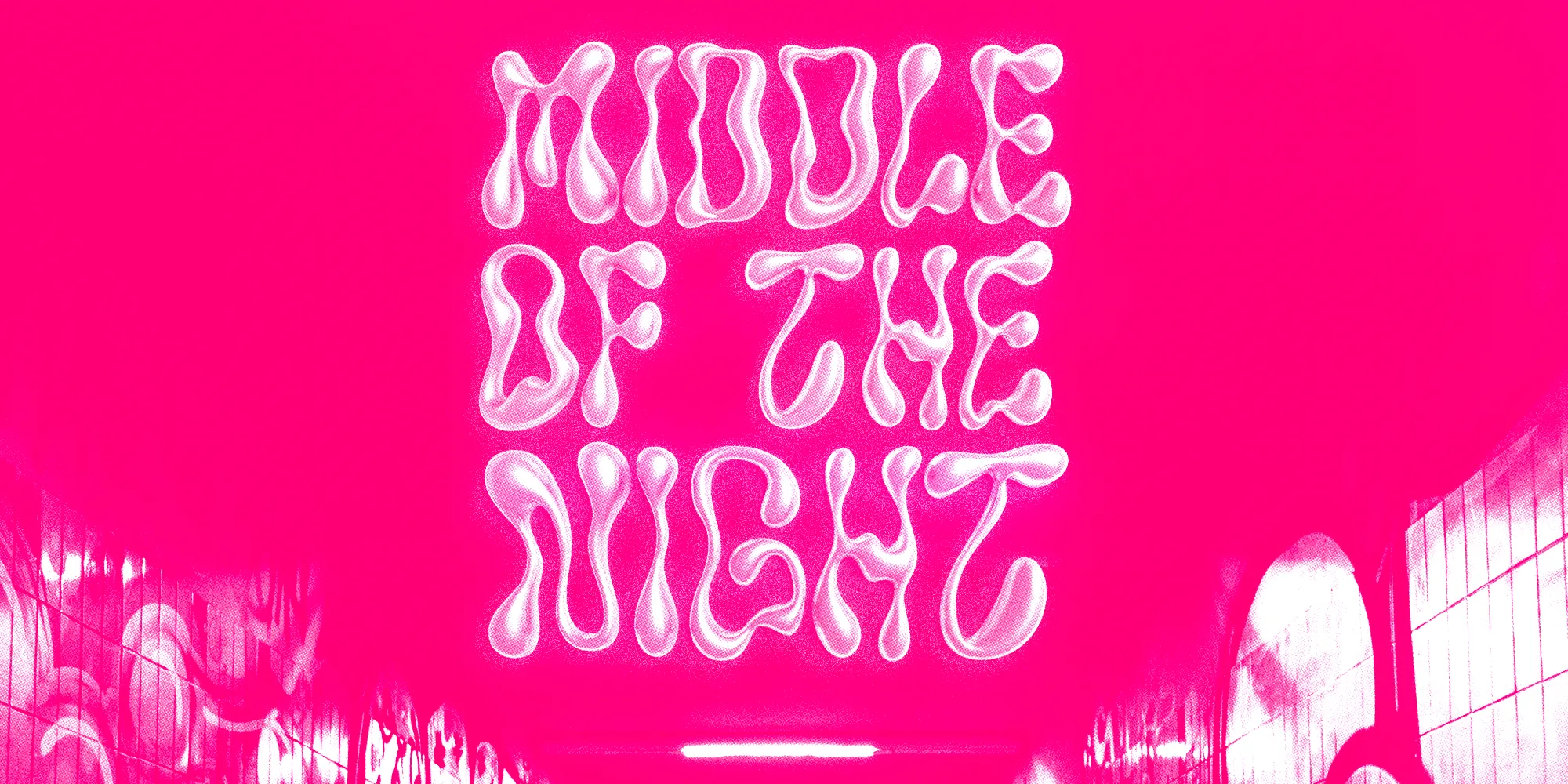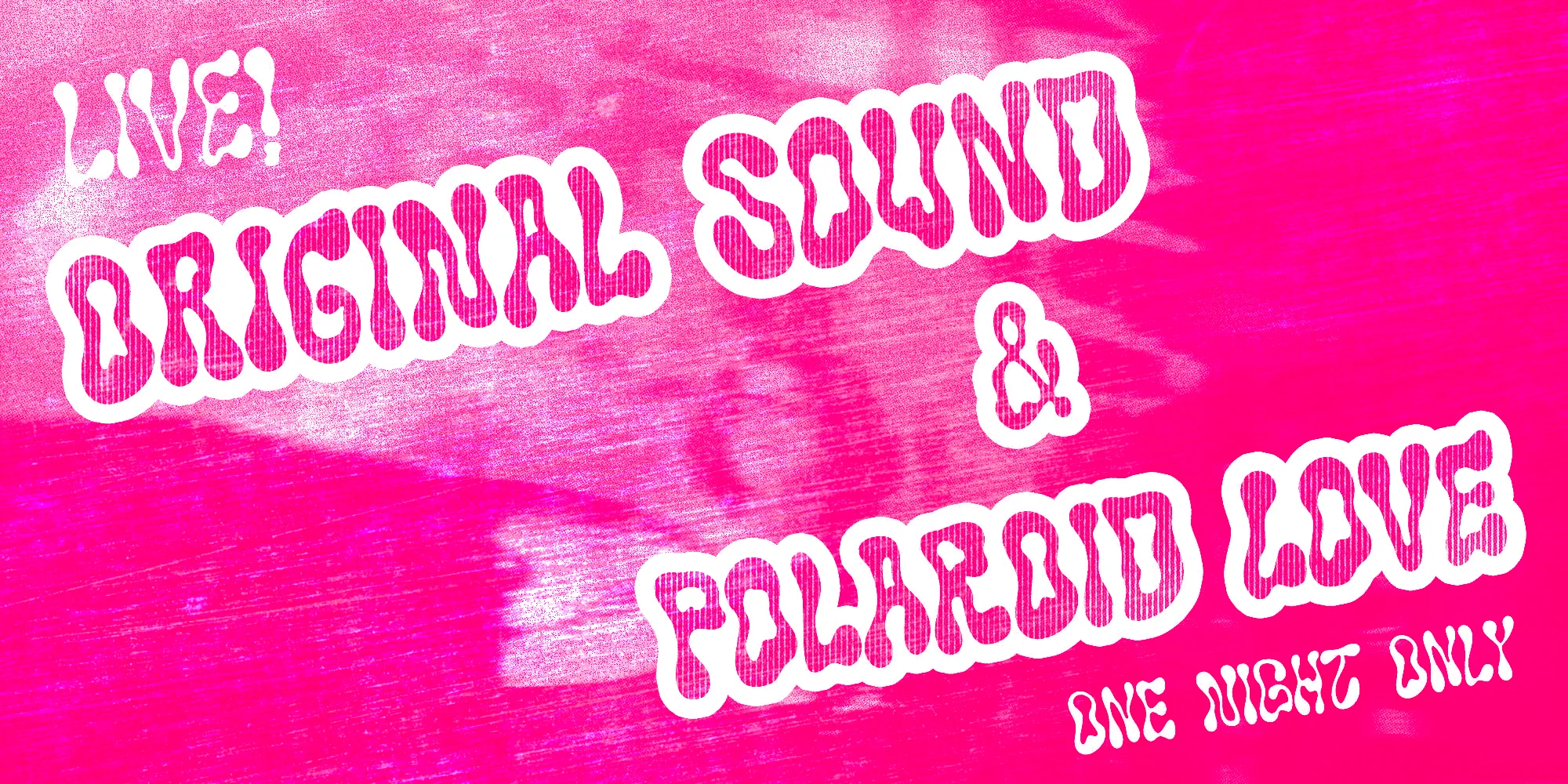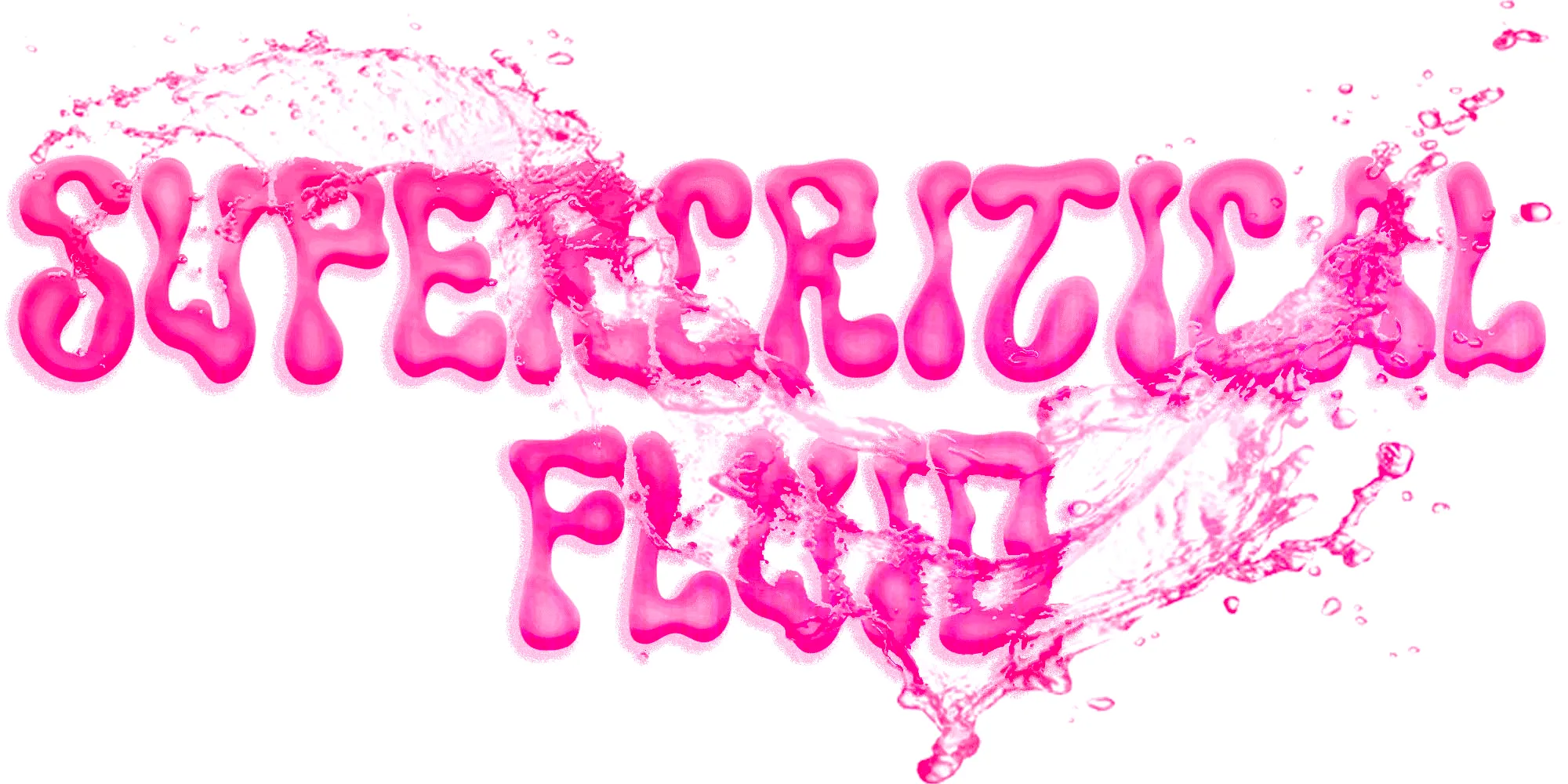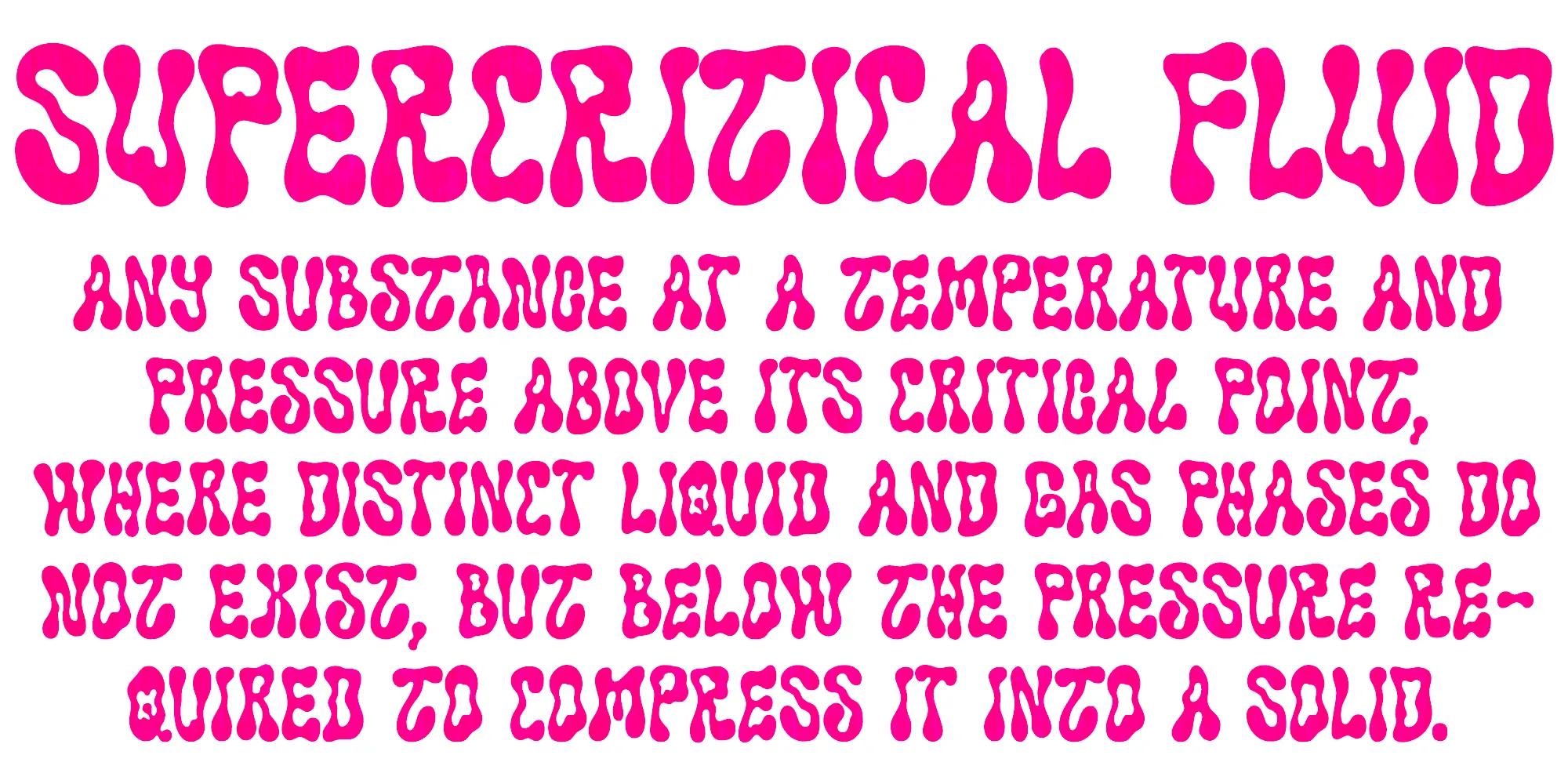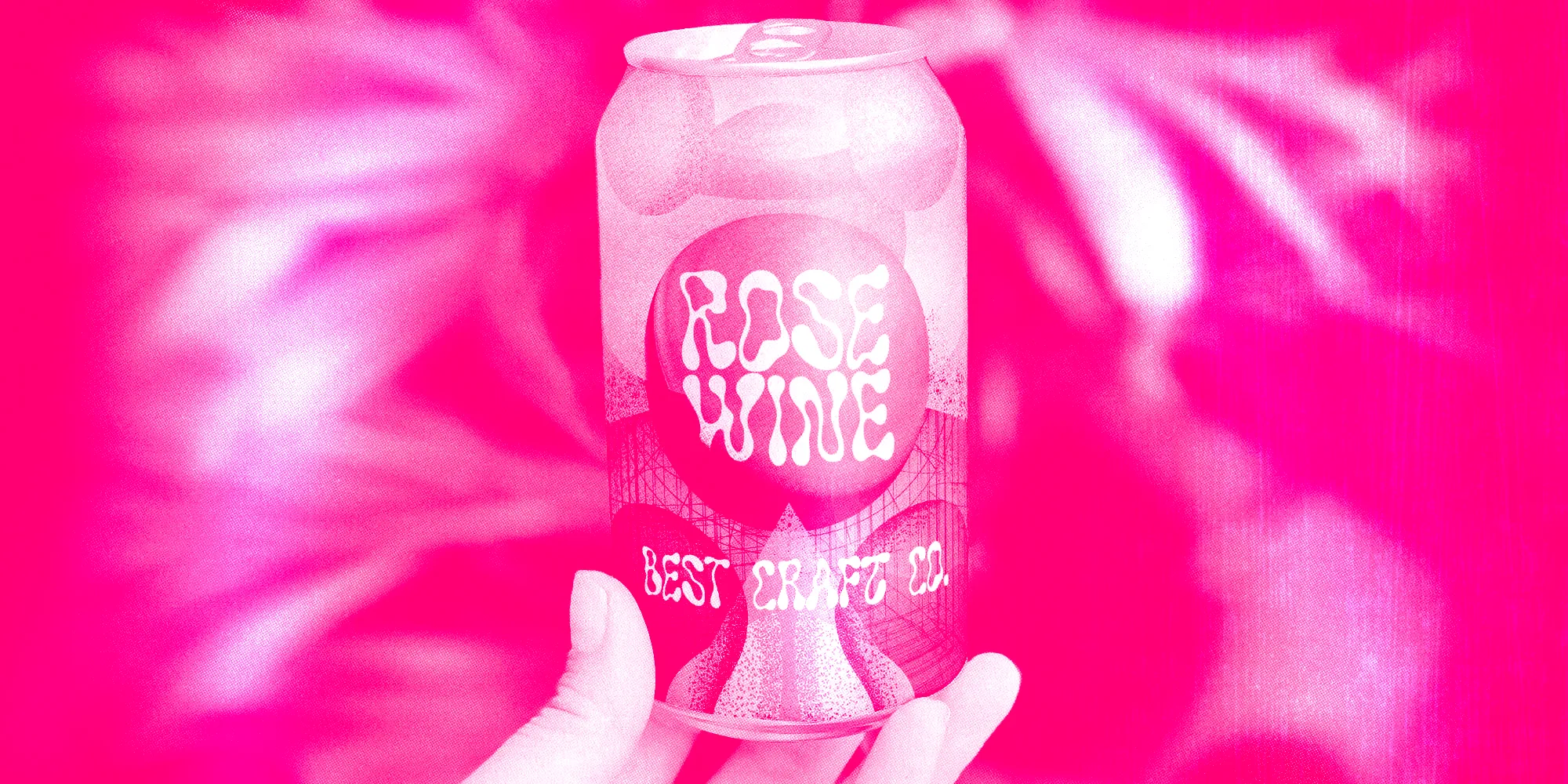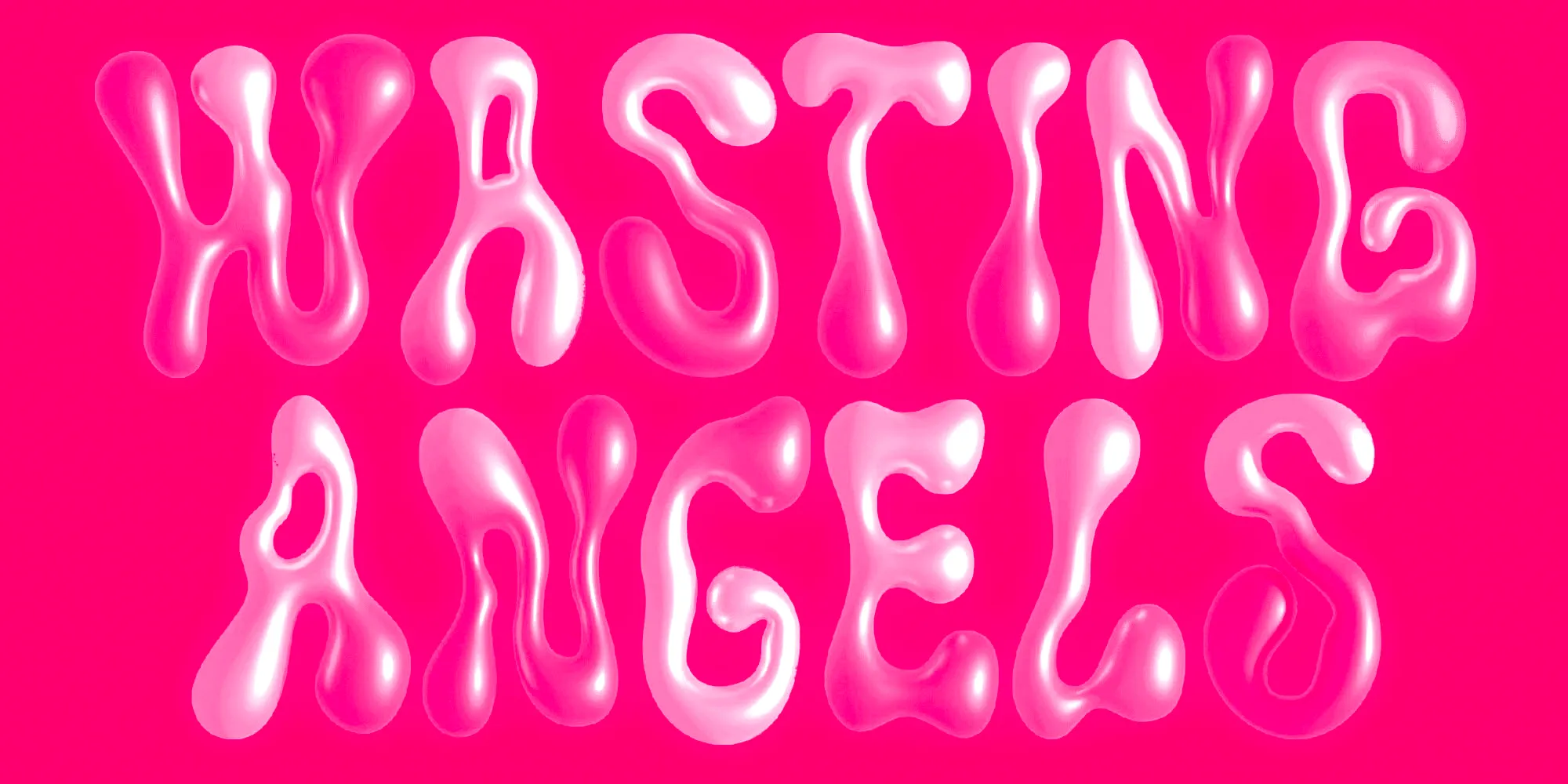
Solvent Font Family
Solvent
Solvent is an inky, fluid display typeface. Somewhere in between liquid water and viscous oil, it is slick and super decorative. This all-caps design has two styles — Regular and Bold — and two options for each letter, plus stylistic alternates for g, y, and z. It is undoubtedly an excellent pick for creative compositions such as packaging, apparel, album covers, books, greeting cards, posters, branding, and many more. Try Solvent fonts today! Liquefy your designs, turn up the sound, and keep creating!